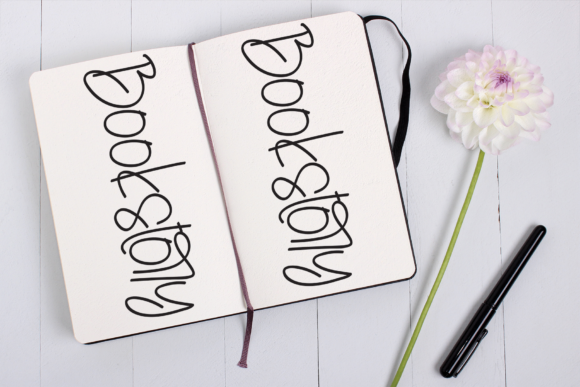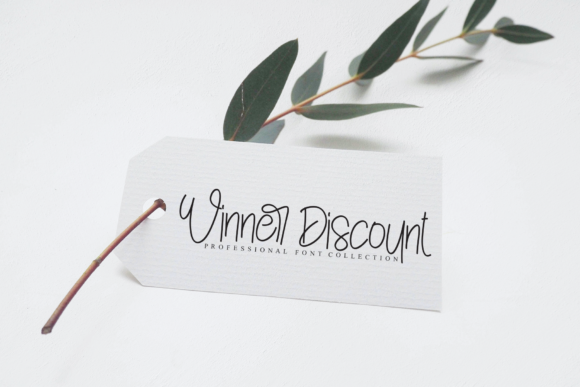
Summer and Winter Font
About Summer and Winter Font
Summer and winter is an exceptionally nice handwritten font. It features elegant and slim characters, perfectly suitable for any project that needs a naturally attractive touch!